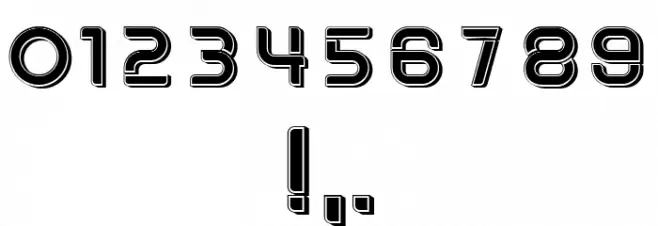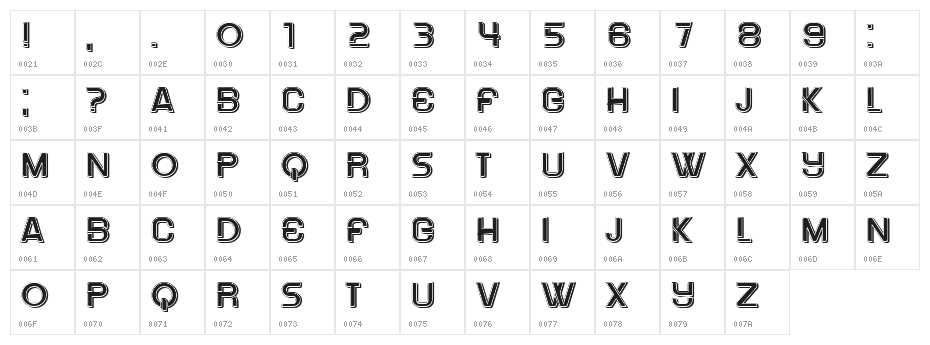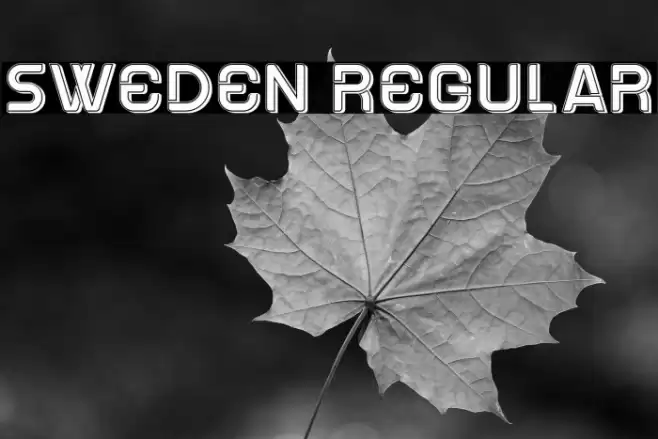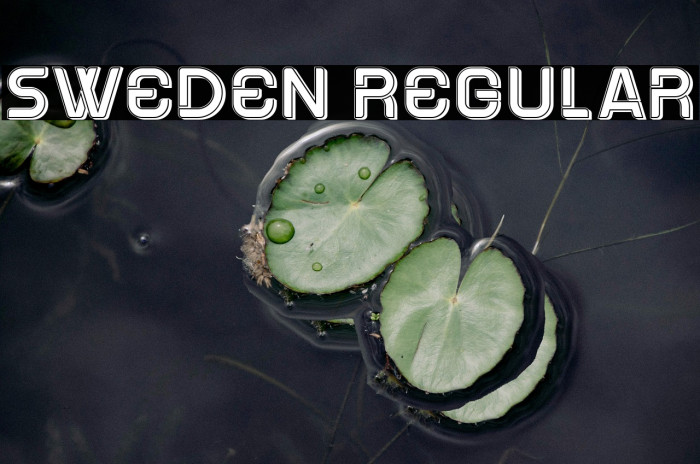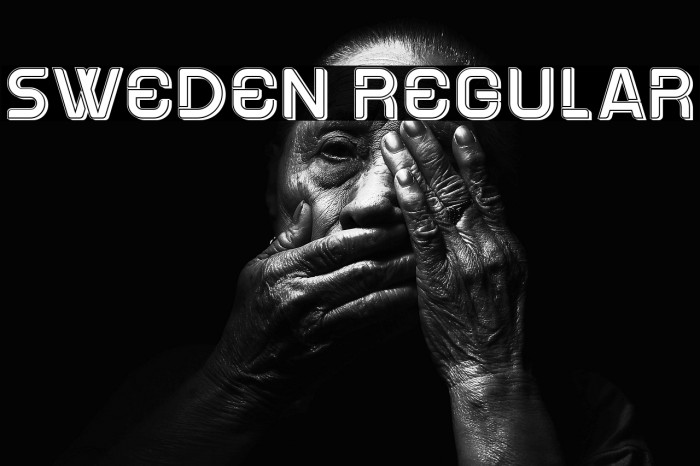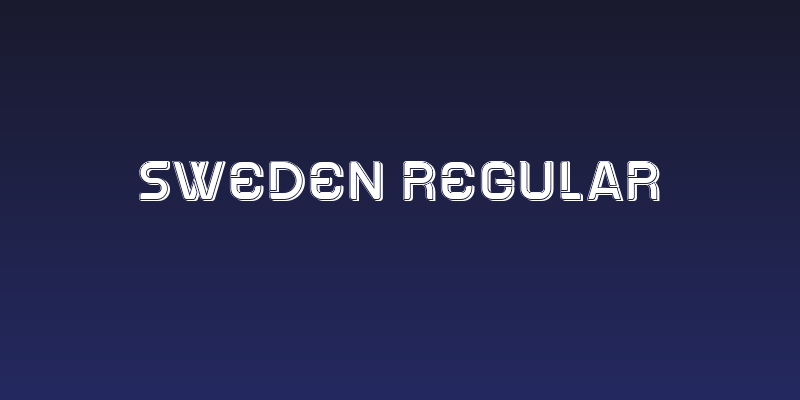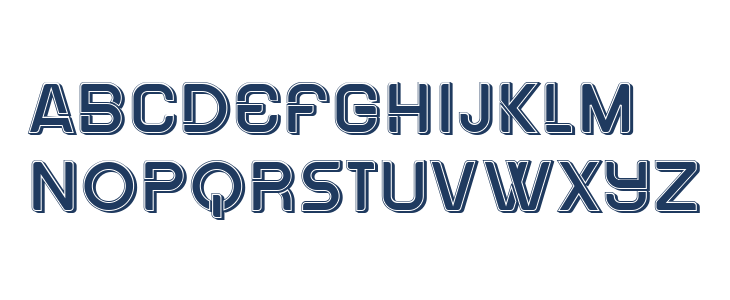
Sweden Regular Font
Sweden Regular Description
This font features a bold, geometric design with a modern twist. The characters are outlined with a double-layered effect, creating a sense of depth and dimension. The uppercase letters are uniform in height, with sharp angles and clean lines that give it a futuristic feel. The numerals and special characters maintain the same stylistic approach, ensuring consistency across all elements. The font's unique style makes it stand out, ideal for projects that require a strong visual impact.
Proposed ProjectsIdeal for branding, posters, headlines, and any design requiring a strong, modern aesthetic.